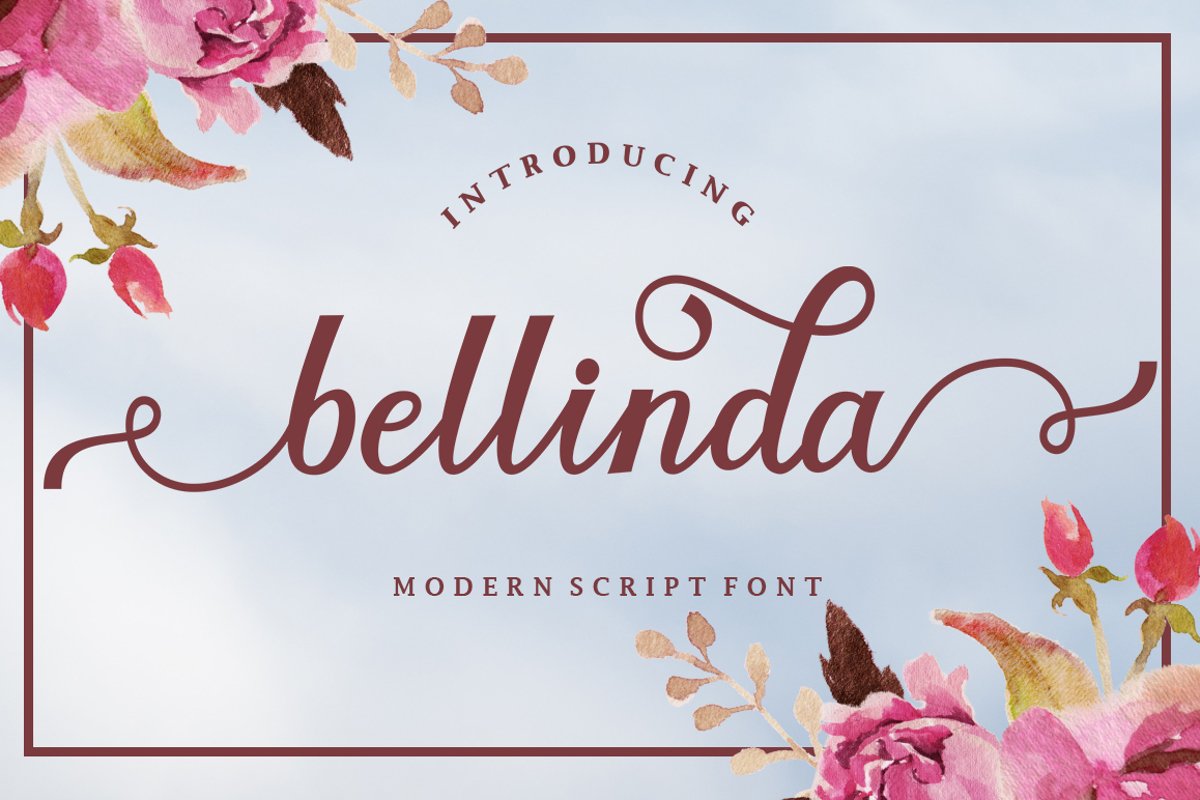
Bellinda
Bellinda Script is a modern calligraphy design, including Regular. This font is casual and pretty with swashes. Can be used for various purposes. such as logo, product packaging, wedding invitations, branding, headlines, signage, labels, signatures, book covers, posters, quotes and more. Bellinda Script features OpenType stylistic alternates, ligatures and International support for most Western Languages ​​are included. To enable the OpenType Stylistic alternates, you need a program that supports OpenType features such as Adobe Illustrator CS, Adobe Indesign & CorelDraw X6-X7, Microsoft Word 2010 or later versions. To access all alternative characters using Adobe Illustrator: